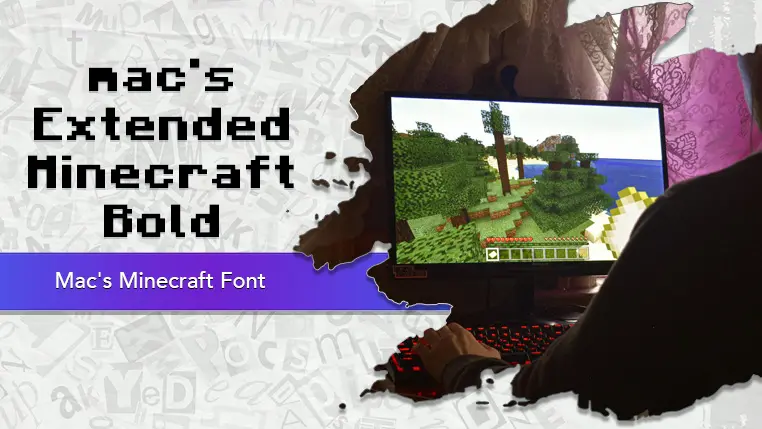
Mac's Minecraft Font
The Mac's Minecraft font family may be ideal for you if you enjoy working on an artistic design project. The lively, expressive look of this typeface, which was created by macimas bahnsisk, makes it ideal for YouTube Thumbnails and Banners For channels which focused on Minecraft gameplay, tutorials, or fan content. Social Media Posts to give a "Minecrafty" feel to updates, news, or memes related to the game. Game-Related Graphics for overlays, loading screens, or user interfaces in fan-made Minecraft content or game mods. and other light-hearted visual projects.
Bold Italic, Bold, Italic, Regular, Bold Italic, Bold, Italic, Regular are the twelve primary font styles of the Mac's Minecraft font family. You may build dynamic, visually appealing text layouts with the distinct flair that each style offers. With crisp, readable lines and a relaxed tone.